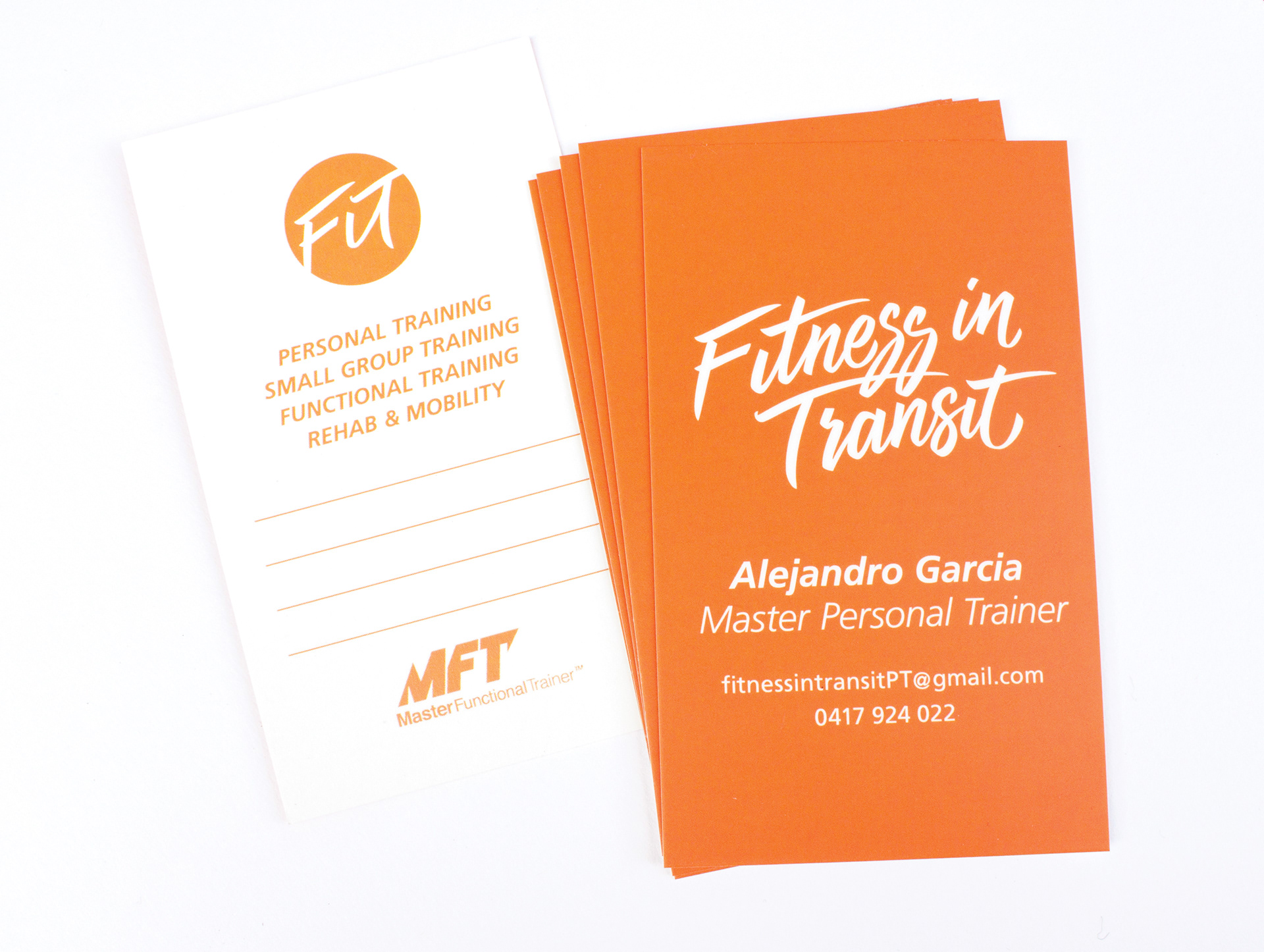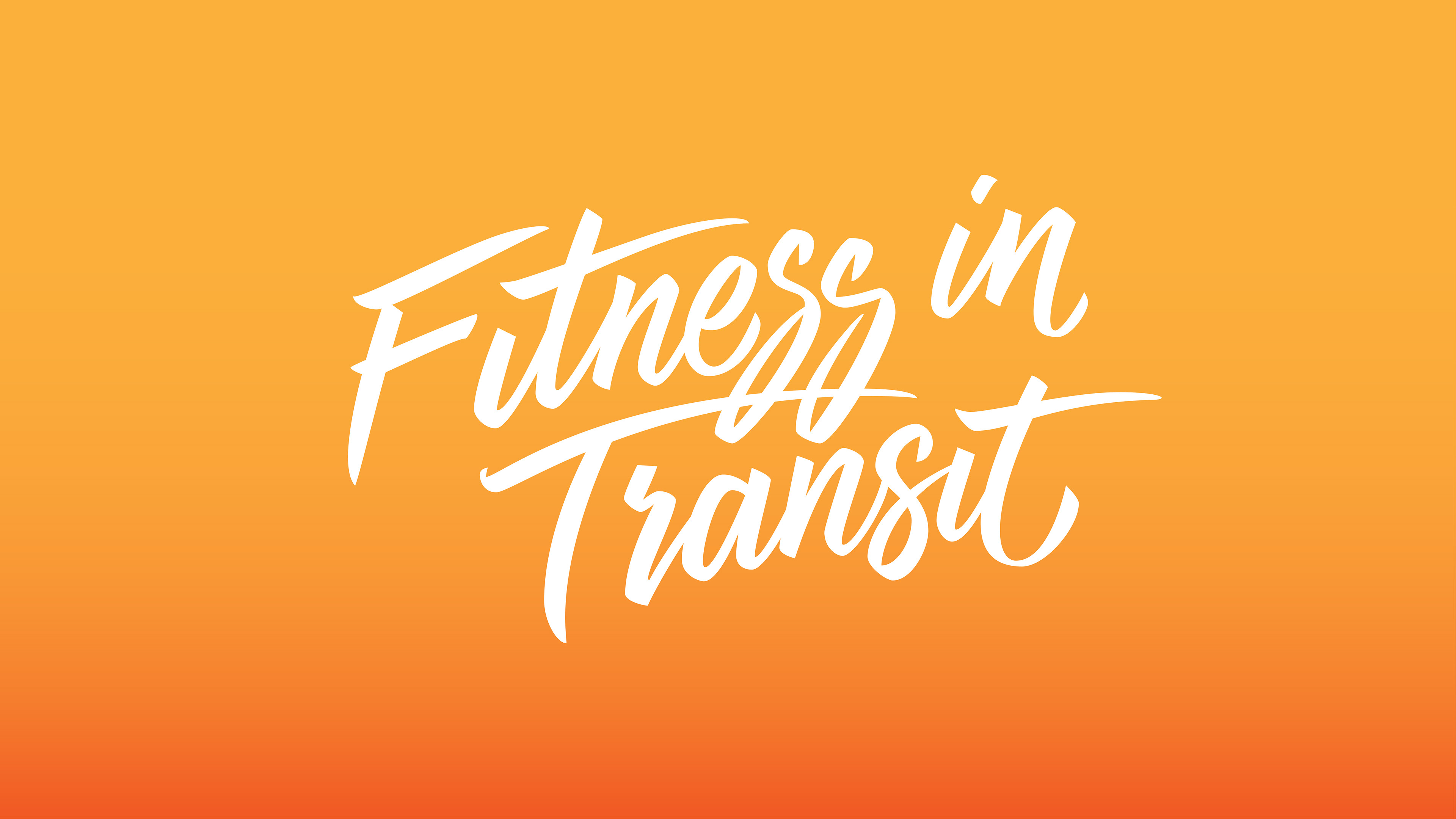
Branding project for a personal trainer running mobile training services, I produced a custom hand lettered logo and business card designs. The brand needed a logo with energy, colour and personality brought through in a hand drawn feel.